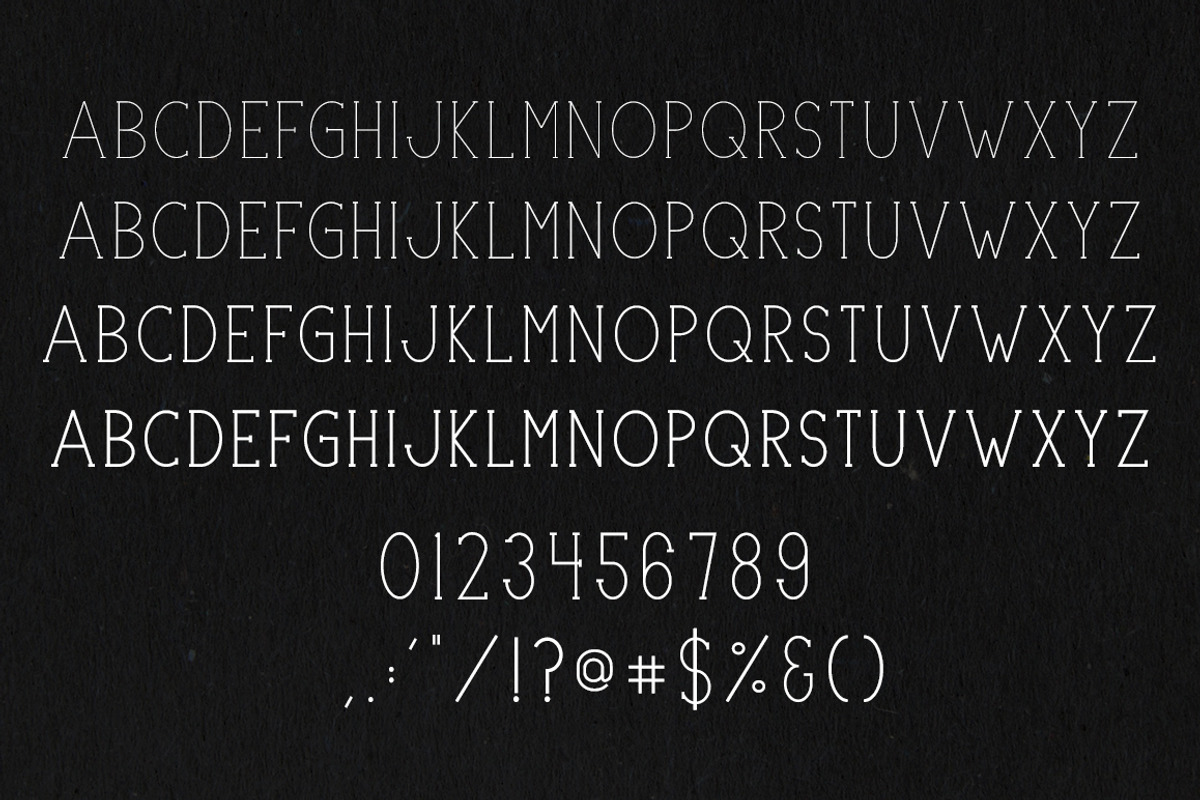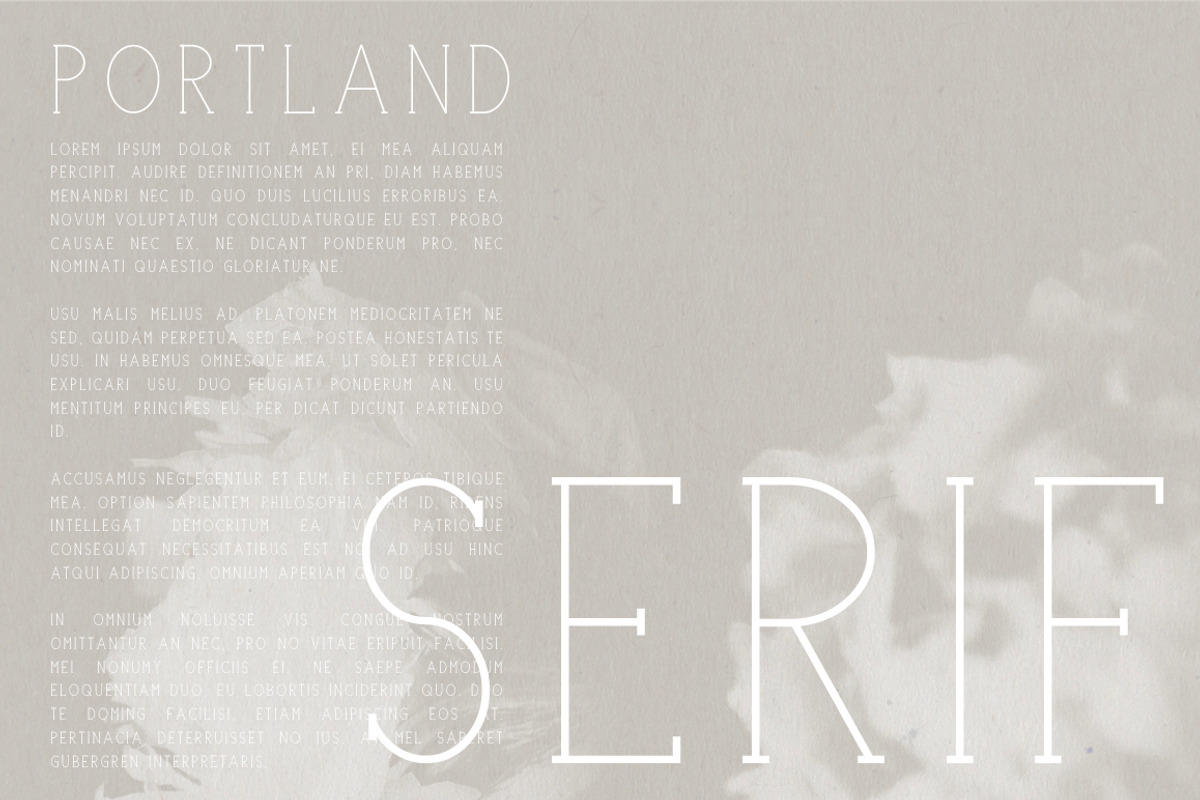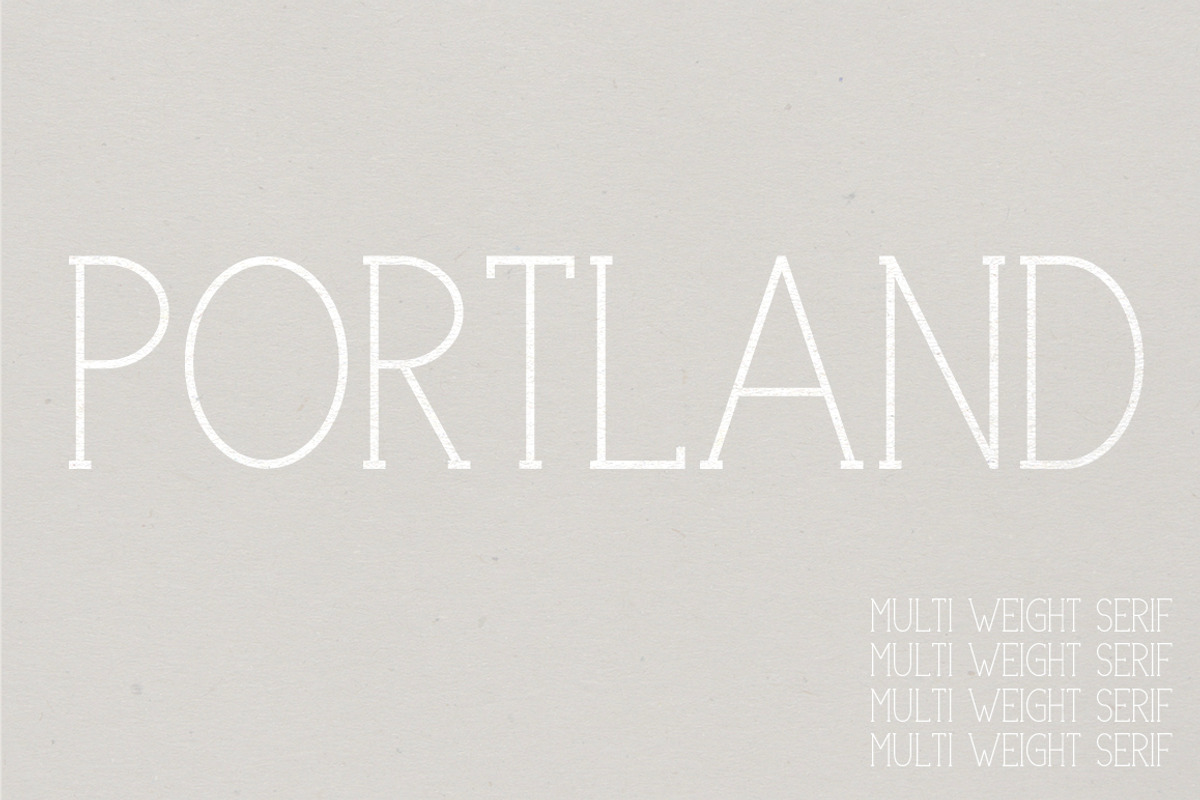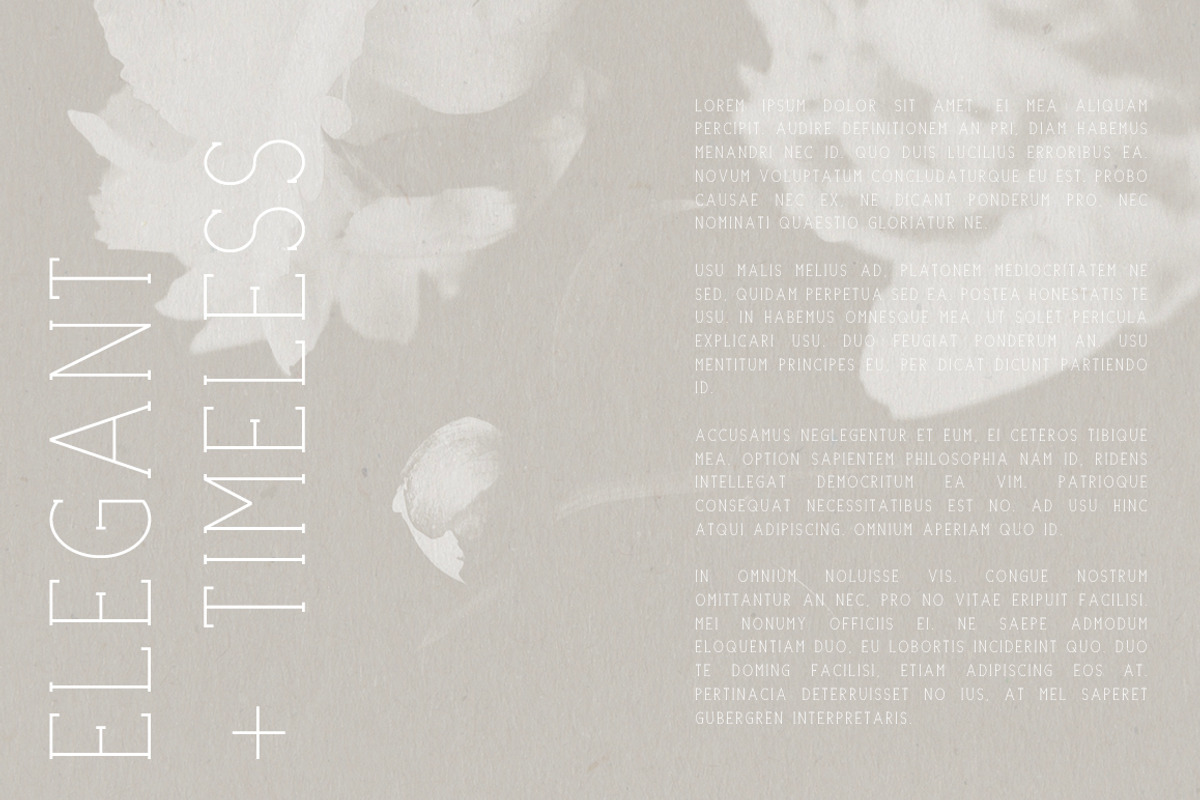
Portland Serif | A Multi-Weight Font
Portland Serif | A Multi-Weight Font by Jen Wagner Co is a font selected for branding, posters, packaging, typography.
- Includes four weights (light, regular, bold, black) uppercase letters numbers & basic punctuation most beautiful when using "Optical" spacin
- Update with non-English characters now available!
Why Portland Serif | A Multi-Weight Font is worth a look
Portland Serif | A Multi-Weight Font by Jen Wagner Co fits naturally into Branding, posters, packaging, typography.